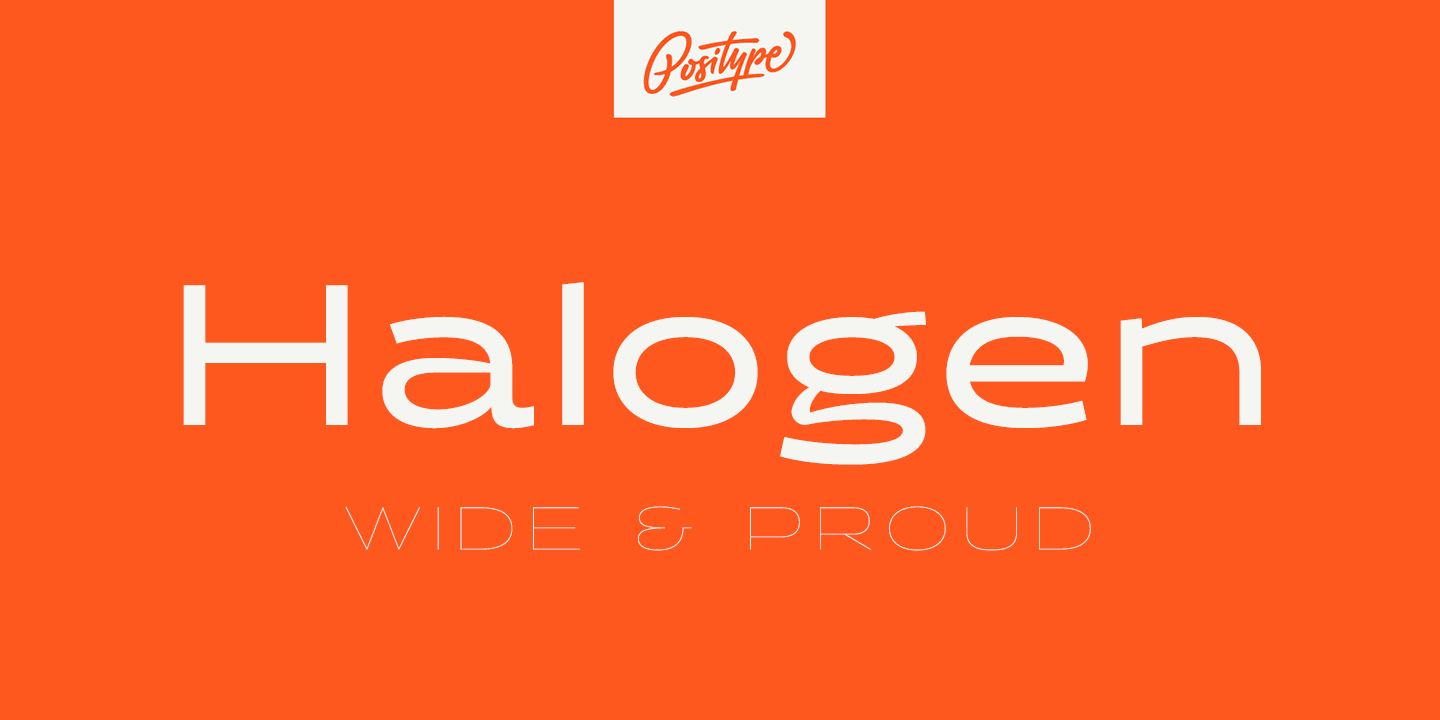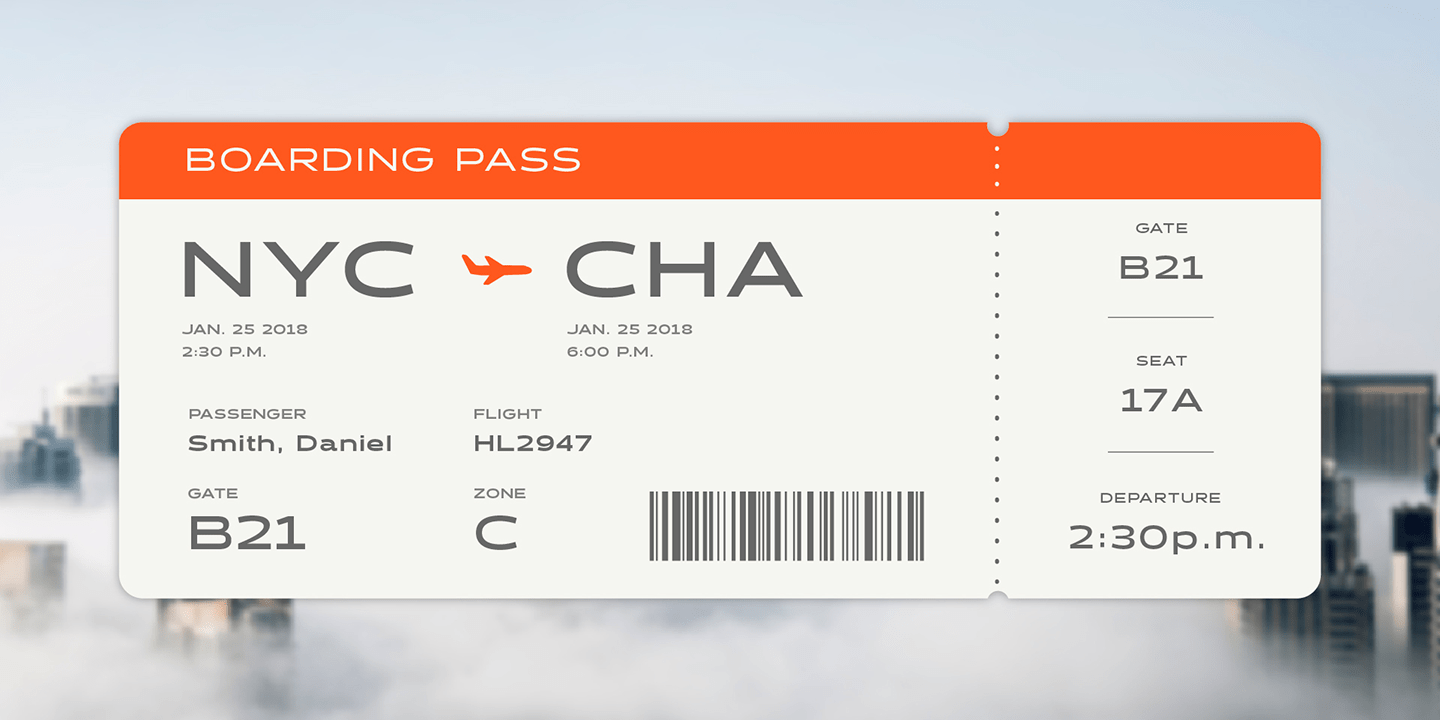
Halogen
Font Family by Positype
Who doesn't want or need an expansive contemporary extended sans that has a sense of style and swagger? what if it had a lowercase, small caps and various numeral options? how could you say no? This was the foundational argument I made for myself when I drew the initial alphabet on my birthday last year (something I do each year, draw a new font, kind of a fun OCD thing). I wanted to see a wide, utilitarian sans that had more to it than just a basic character set and didn't resemble standard geometric models. As I continued sketching, the letterforms were being influenced more by my ?lettering tendencies? than the normal mechanical trappings of drawing flat, wide letters. The letters have retained aspects of letters created by hand ? stresses, modulation, naturally ending terminals. Truncation and quick clipping of strokes became antithetical to the letterforms I drew, so I continued this once I brought the design into the computer. I kept it precise and dependable, but made every attempt to keep a conscientiously crafted typeface and not let it devolve into a grid-based drone. As such, it works just as well looking back in time as much as it does assuming a lead role in a sci-fi movie.
Halogen does deliver and opts not to take a short cut and provide an anemic offering of glyphs ? a modern typeface offered today must provide more than just the basics and this one does ? lowercase, smallcaps, old style numerals, tabular forms, stylistic and titling alternates, fractions, case-sensitive features, and even an alternate uppercase ordinal set is included. So go make cool print and digital things with it, now.